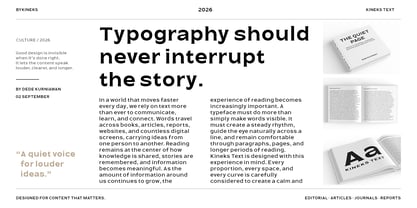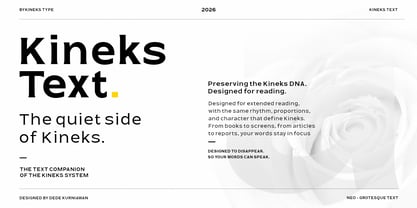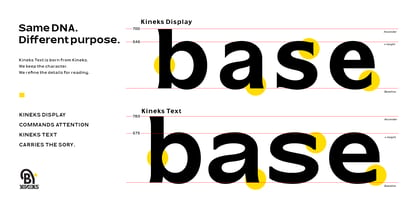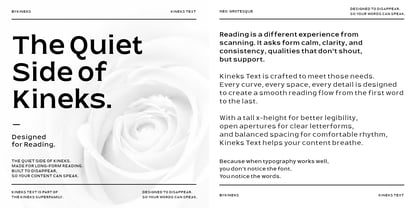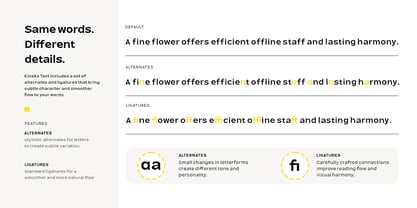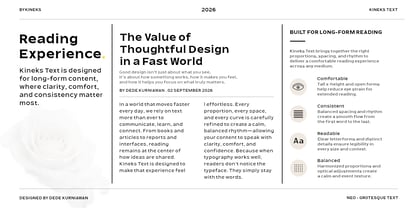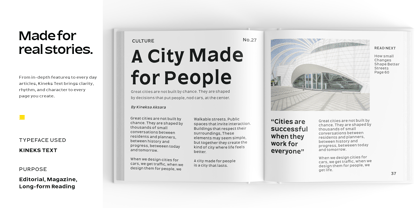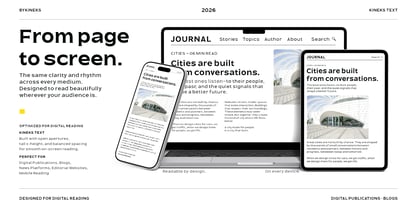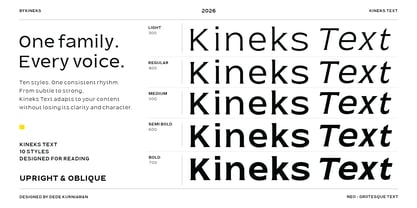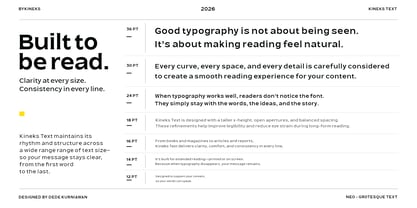
Kineks Text
The Kineks Text Font Family was designed by Dede Kurniawan and published by Bykineks. Kineks Text contains 10 styles and family package options. More about this family
Kineks Text is a neo-grotesque text typeface designed for readability, extended reading, editorial typography, and digital publications. It is the text companion to Kineks Display, bringing the distinctive Kineks Typeface into a more restrained and reading-focused design.
Designed for books, magazines, articles, reports, websites, blogs, and other long-form content, Kineks Text features a generous x-height, open apertures, clear letterforms, balanced proportions, and carefully tuned spacing for a smooth and consistent reading rhythm. The design is optimized to remain comfortable at small text sizes while retaining the character of the wider Kineks family.
Kineks Text includes 10 styles from Light to Bold, with Upright and Oblique styles. Standard ligatures and stylistic alternates provide subtle typographic variation without disrupting the reading texture.
As part of the evolving Kineks type system, Kineks Text is designed to work alongside Kineks Display and future Kineks families, allowing different typefaces within the system to serve different typographic roles while maintaining a shared visual DNA.